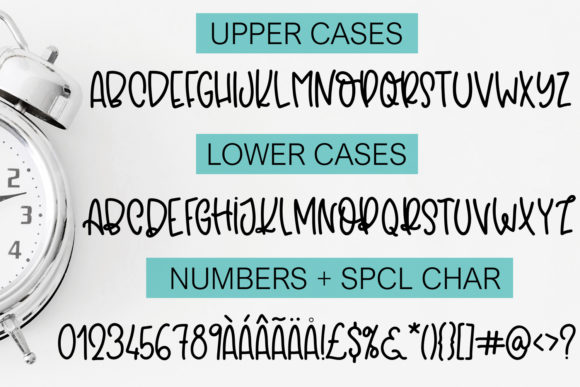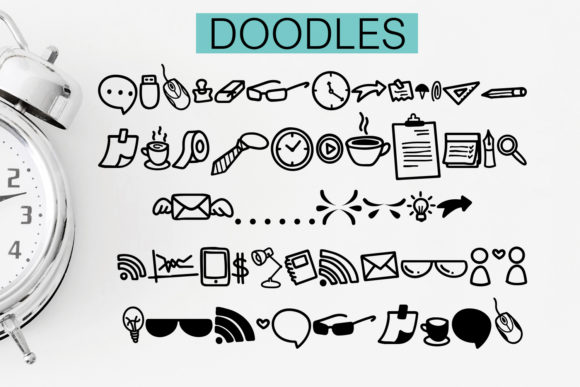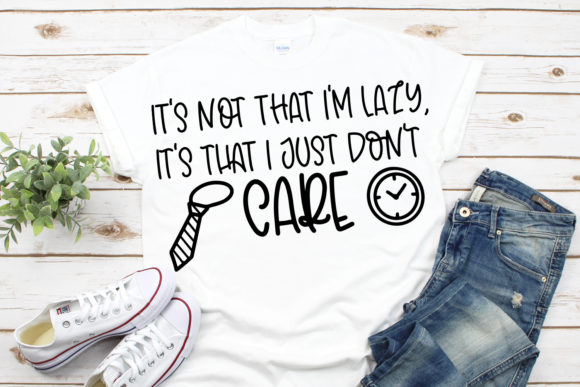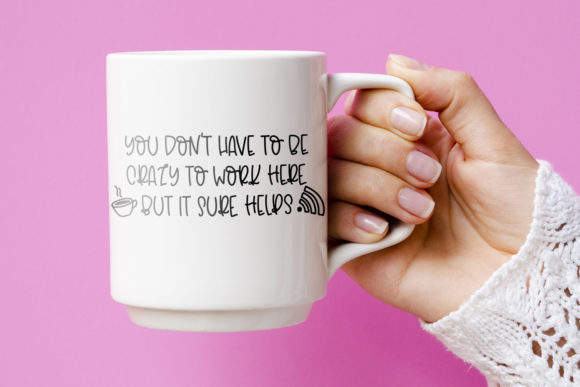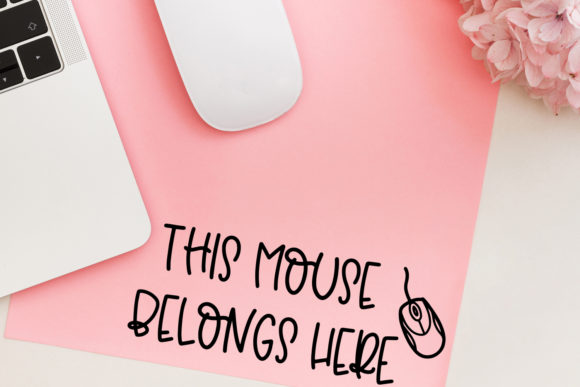
Introduction to Clock Watcher Font
Clock Watcher is a cute and quirky handwritten font.
It features a wealth of doodles which will enrich your design ideas Add this font to your favorites and notice how it makes your projects come alive.
Key Features of Clock Watcher Font
Why Choose Clock Watcher Font?